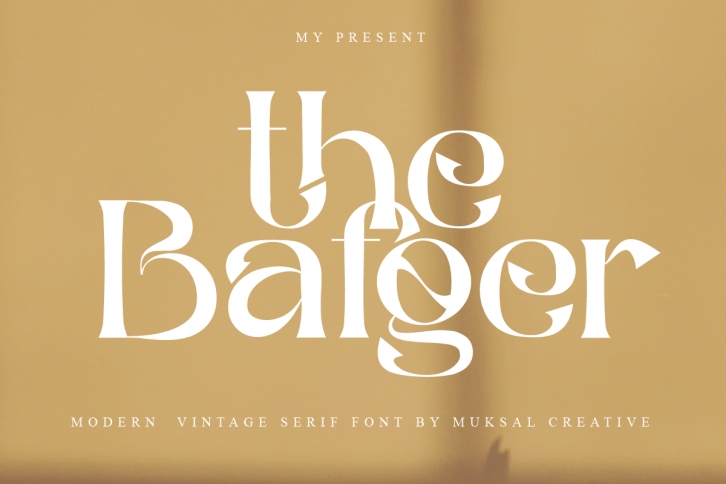
The Bafger is a cool and distinct display font. Whatever the topic, this font will be a wonderful asset to your font library, as it has the potential to enhance any creation.